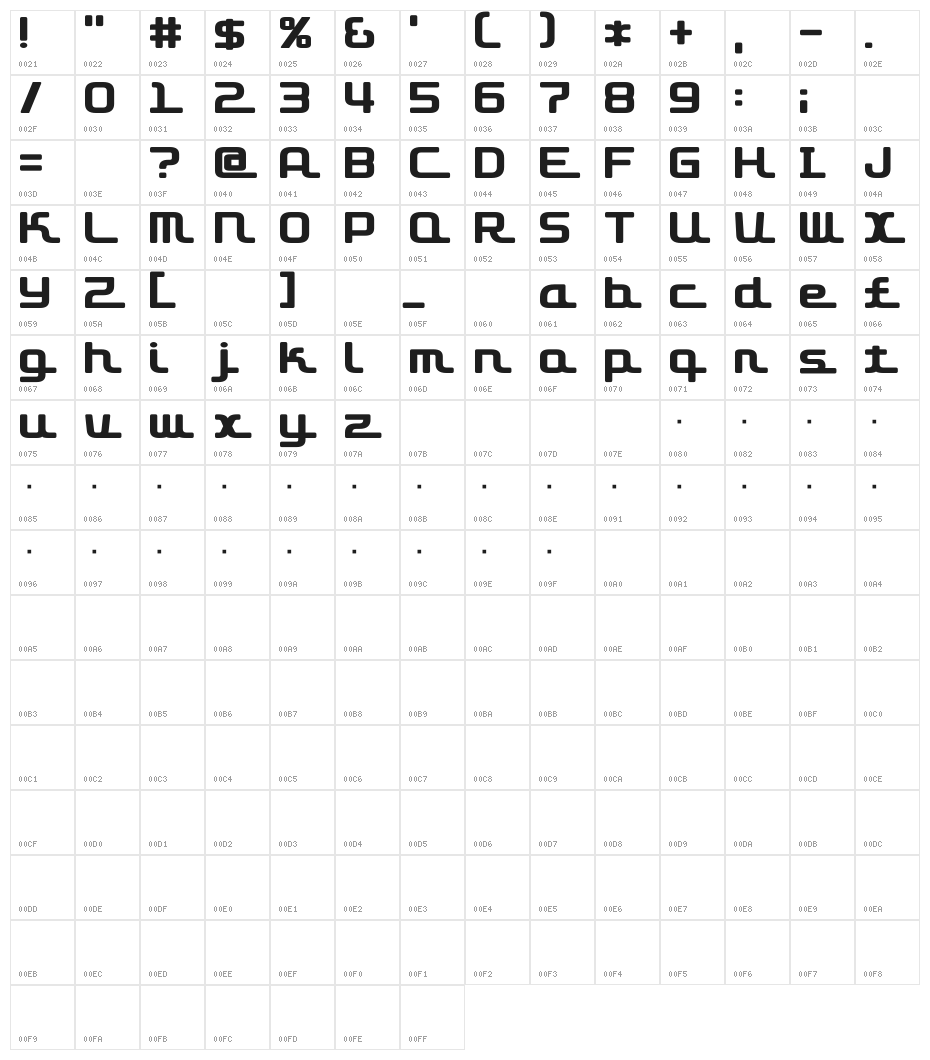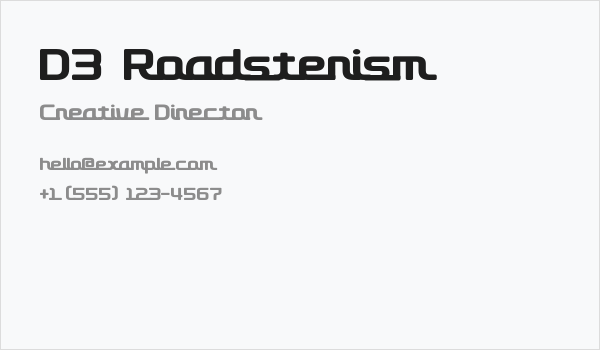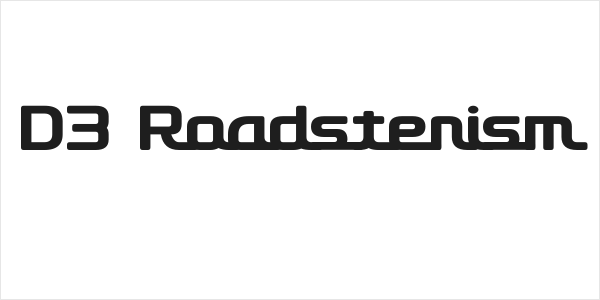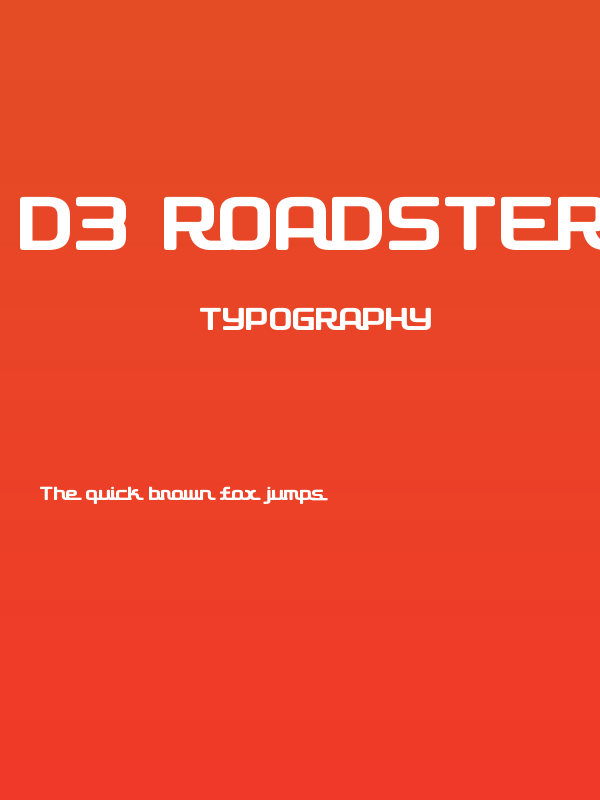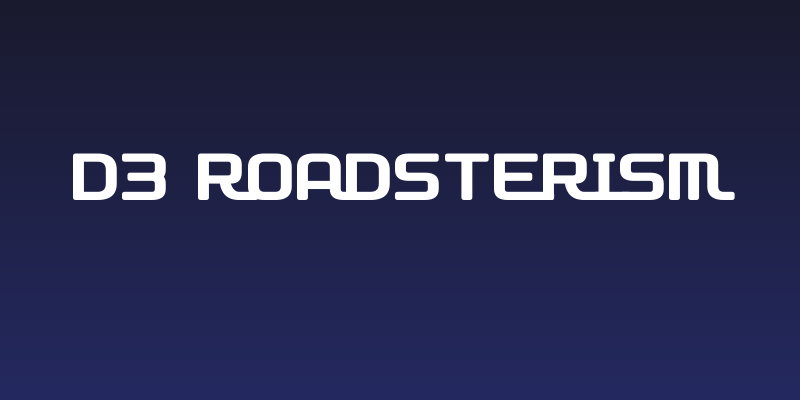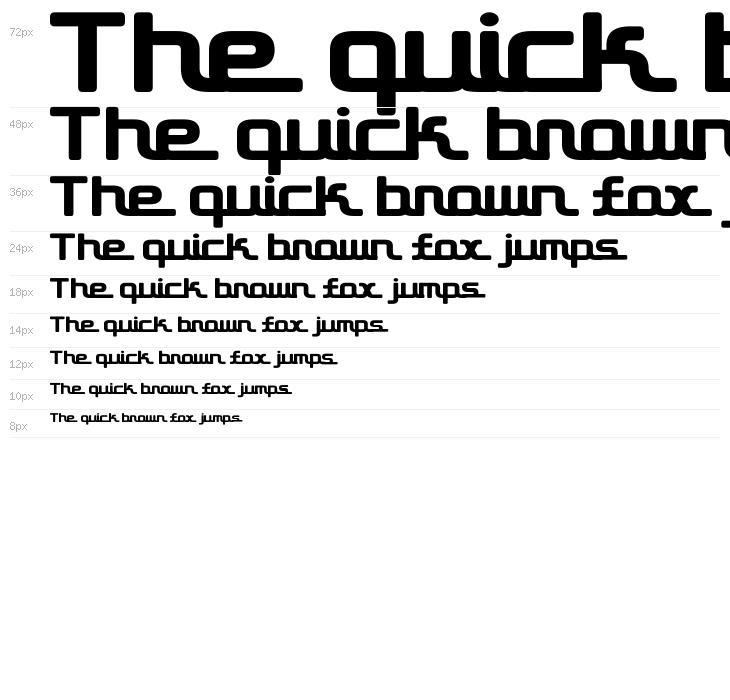
D3 Roadsterism Font
D3 Roadsterism Description
This font features a modern, rounded design with a futuristic flair. The characters are bold and have a consistent thickness throughout, giving it a strong, cohesive appearance. The rounded edges and smooth curves add a friendly and approachable feel, while the geometric structure maintains a sense of precision and order. The uppercase and lowercase letters are distinct yet harmonized, and the numerals are clear and easy to read. Special characters are well-integrated, maintaining the overall aesthetic. The font's style is versatile, suitable for a variety of design applications.
Use CaseLogos, Headlines, Digital Interfaces
Proposed ProjectsIdeal for tech branding, modern advertising, digital interfaces, and futuristic-themed projects.